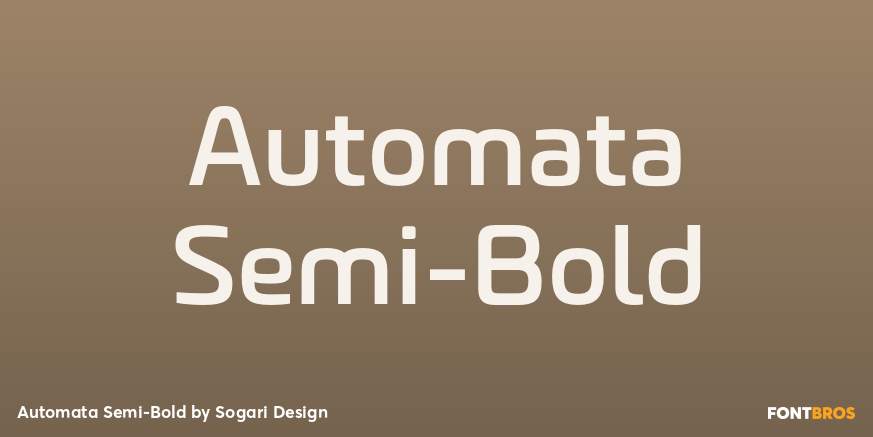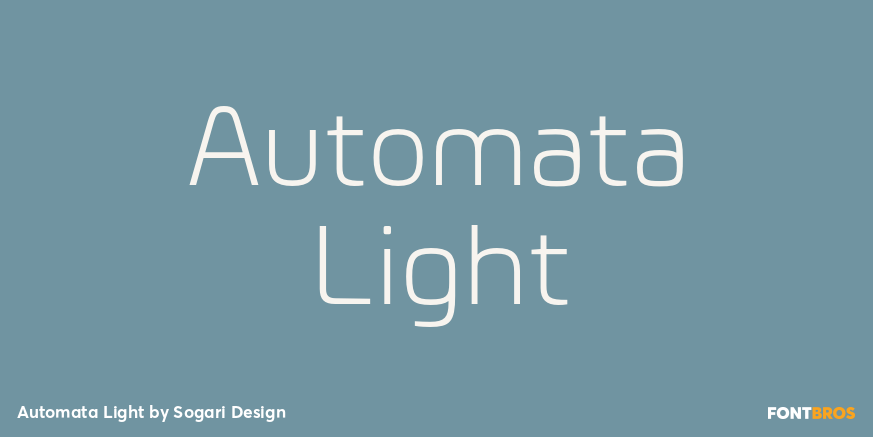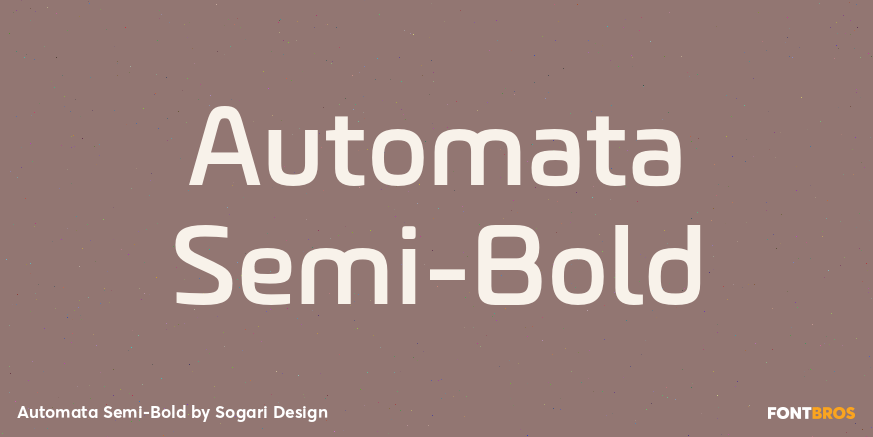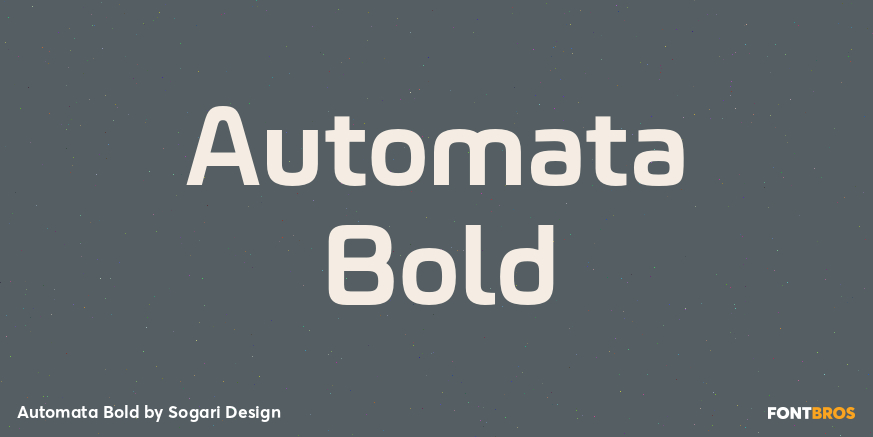
Automata
Font Family by Sogari Design
Buy NowWith a retro-futuristic look that remains highly legible, Automata features smooth, clean lines and a geometric aesthetic that conveys a sense of technology and innovation. In addition to its design characteristics, Automata offers customizable options such as stylistic alternates and unique discretionary ligatures. Its extensive language support and easy legibility at medium and smaller sizes make Automata a global typeface ideal for a wide range of applications.